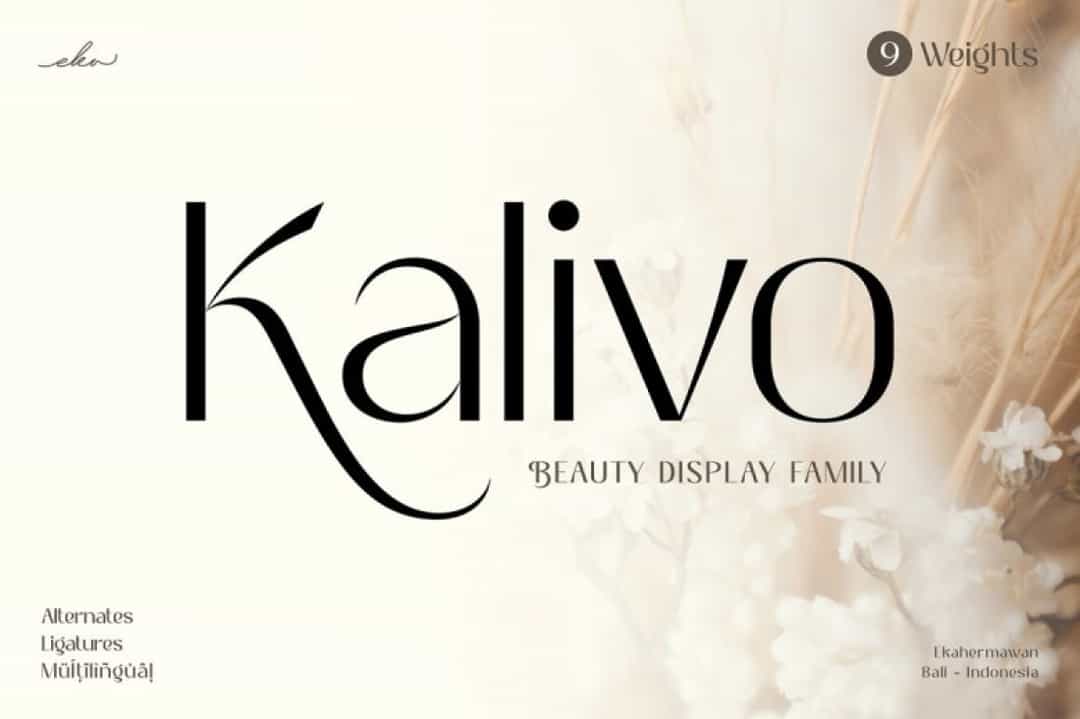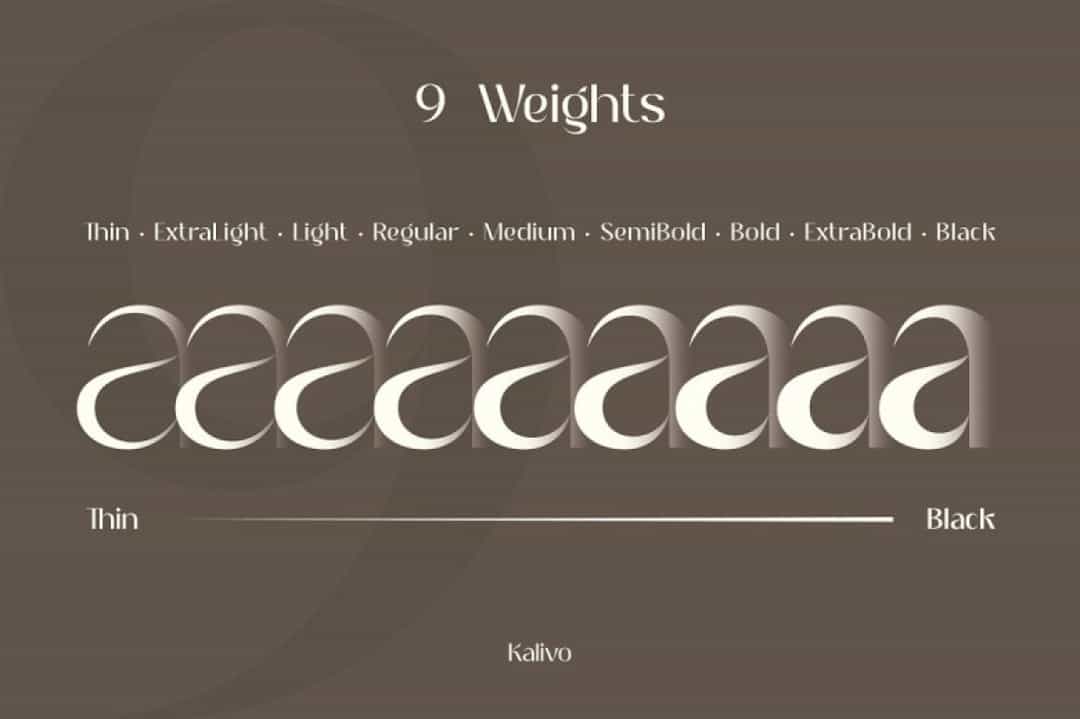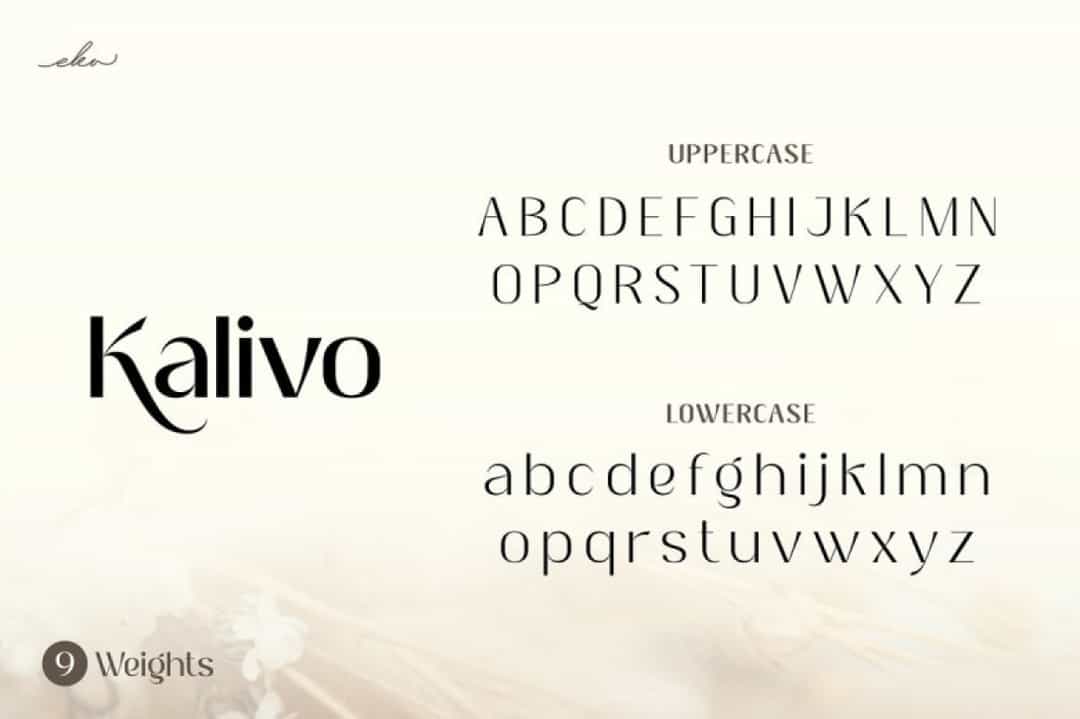
Kalivo is an elegant display font family. This high contrast font is great for logo branding, poster magazines, labels, invitations, merchandise advertising and quotes; and much more.